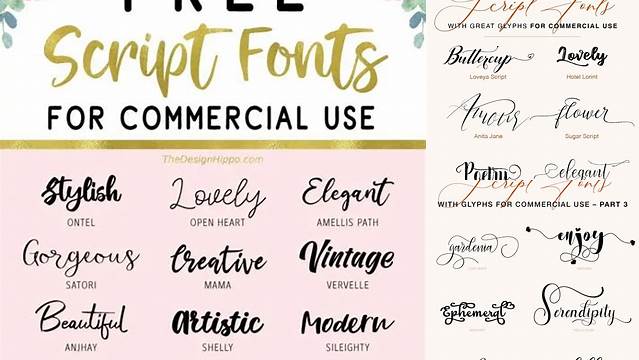
Free Modern Script Fonts For Commercial Use
Are you looking to add a touch of elegance, personality, or flair to your design projects? Then, modern script fonts are the perfect choice! These fonts mimic the fluidity and artistry of handwritten script, bringing a human touch to your branding, marketing materials, and creative endeavors. But finding the right fonts can be challenging, especially if you're on a budget. That's why we've compiled a comprehensive guide to the best modern script fonts free for commercial use. Yes, you read that right – you can use these fonts for your business projects without worrying about licensing fees. We will explore various font styles, from elegant and sophisticated to playful and modern. This will help you discover the perfect script font to elevate your designs. So, let’s dive in and uncover the world of beautiful, free, and commercially usable script fonts!
What are Modern Script Fonts?
Let's start with the basics, shall we? Modern script fonts are typefaces that resemble handwriting. Unlike traditional serif or sans-serif fonts, script fonts have a unique character due to their flowing strokes and connected letterforms, giving them a personalized and artistic appearance. These fonts can be broadly categorized into several types, each with its distinct characteristics and suitable applications. There are elegant calligraphy-inspired scripts, which are ideal for wedding invitations, logos, and other projects. These scripts often feature delicate, flowing lines and ornate details. Another is casual, handwritten scripts, with a more relaxed and informal appearance. These are fantastic for social media graphics, packaging, and any design needing a friendly vibe. The bold, modern script fonts, are perfect for making a statement. They often have thick strokes and a strong presence. They are excellent for headlines, titles, and other elements where you want to grab attention. Finally, there are monoline scripts with consistent line weight, that can be very versatile and are excellent for a variety of uses, from branding to website design. Understanding these categories is the first step in choosing the right font for your project.
The aesthetic appeal of modern script fonts stems from their ability to infuse a design with a human element. In an era of digital uniformity, script fonts provide a breath of fresh air. They create visual interest and a sense of authenticity, communicating sophistication, playfulness, or warmth, depending on the style. Script fonts can be a powerful tool to differentiate your brand and captivate your audience, so you’ll be surprised to see how big the impact is.
Top Modern Script Fonts Free for Commercial Use
1. Playlist Script: A Modern and Playful Choice
Playlist Script is an excellent choice if you're looking for something fun and informal. With its bouncy baseline and casual strokes, it exudes a friendly vibe that's perfect for designs aimed at a youthful audience. Think social media graphics, posters, or product packaging. The font's playful nature makes it ideal for brands that want to appear approachable and modern. It offers a good balance between readability and style, ensuring your message is clear while still adding a touch of personality. To make the best use of Playlist Script, consider using it for headlines, quotes, or short blocks of text where you want to add a touch of flair. The font is great for creating a casual, handwritten feel. It’s definitely going to be one of your favorites!
2. Great Vibes: Elegant and Sophisticated
If elegance is what you seek, Great Vibes is your answer. This font boasts a sophisticated, flowing style that's reminiscent of classic calligraphy. Its beautiful curves and graceful connections make it perfect for invitations, logos, and branding projects. The design exudes a sense of luxury and refinement, making it ideal for brands that aim to convey sophistication and high-end appeal. Consider using Great Vibes for wedding invitations, luxury product labels, or any project where you want to create a premium feel. The font's timeless design ensures it will remain stylish for years to come. Great Vibes is a top-notch choice for projects needing that extra touch of elegance.
3. Dancing Script: Versatile and Expressive
Dancing Script is a charming and versatile font that strikes a balance between elegance and approachability. This font mimics the look of a handwritten script, with a lively and dynamic feel. This makes it suitable for a wide range of applications. It's perfect for creating a friendly, personal tone. Consider using Dancing Script for invitations, greeting cards, quotes, and social media graphics. The font's adaptability makes it a reliable choice for any design project. It gives a human touch to your projects, which is so important nowadays, right?
4. Pacifico: A Retro-Inspired Script
For a touch of retro charm, Pacifico is a must-try. Inspired by the surf culture of the 1950s, this font features a bold and playful style that brings a nostalgic vibe to your designs. Its unique character makes it stand out, making it perfect for projects needing a vintage or retro aesthetic. Pacifico is great for branding, posters, and websites that want to add a touch of personality and nostalgia. Consider using it for headlines, logos, or any design where you want to evoke a sense of fun and nostalgia. Pacifico's distinctive look ensures it captures attention and adds a unique flair to your creative endeavors.